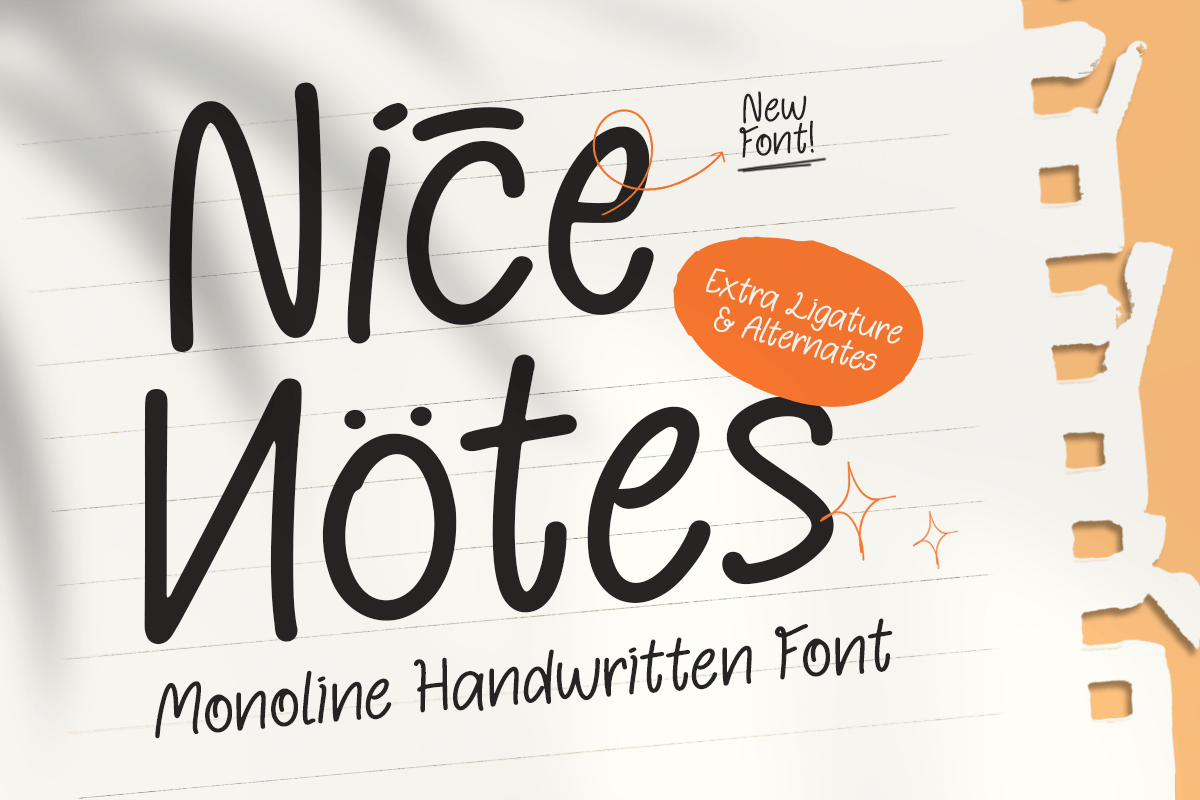
Nice Notes
-Cute Handwritten Font
Nice Notes
Nice Notes – Cute Handwritten Font
Nice Notes is a cute handwritten font designed to feel warm, personal, and irresistibly friendly. Its soft strokes and cheerful rhythm create an easygoing handwritten look that’s perfect for adding a cozy, charming tone to your typography.
Made for journaling aesthetics and everyday creative projects, Nice Notes works beautifully for planner layouts, notebook covers, stickers, labels, quotes, and social media content. It’s also a great fit for cute branding, packaging, classroom materials, and playful headlines where clarity and personality need to go hand in hand.
Whether you’re building a stationery brand, designing printable templates, or creating fun merchandise, Nice Notes brings a lovable handwritten vibe that makes your message feel more human and memorable.
Nice Notes – Cute Handwritten Font Features
• Cute handwritten letterforms with a friendly, cozy feel
• Perfect for notes, planners, journals, and printable designs
• Great for stickers, labels, quotes, and social media captions
• Ideal for cute branding, packaging, and classroom materials
• Clear readability for both digital and print use
• OpenType features for smoother creative layouts
Make every design feel sweeter with Nice Notes—perfect for cute handwritten charm. 🍓📝